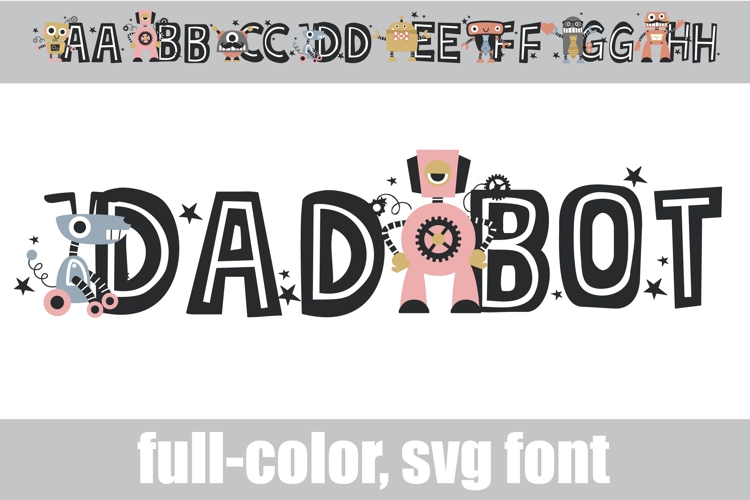
Dadbot Subdued Color Font
This full-color, sans serif font features robot dads on the uppercase. There is an alt case of additional colors of each letter that you can access through your system's character map.